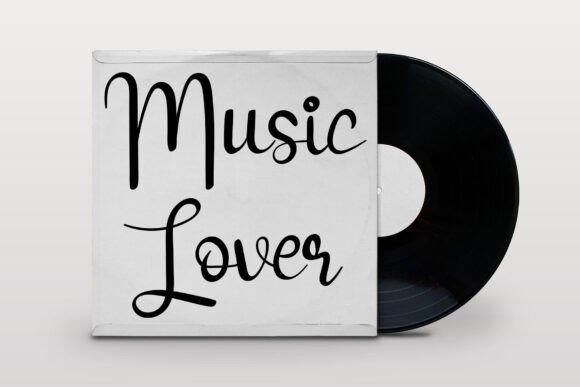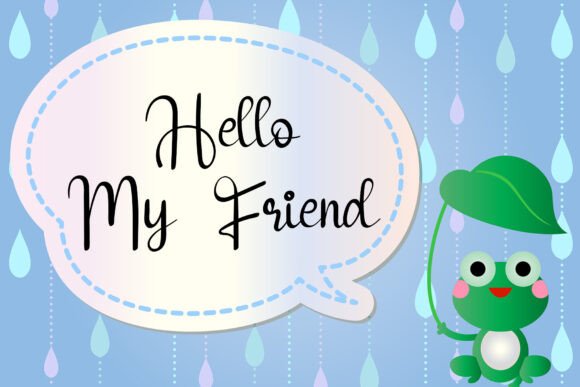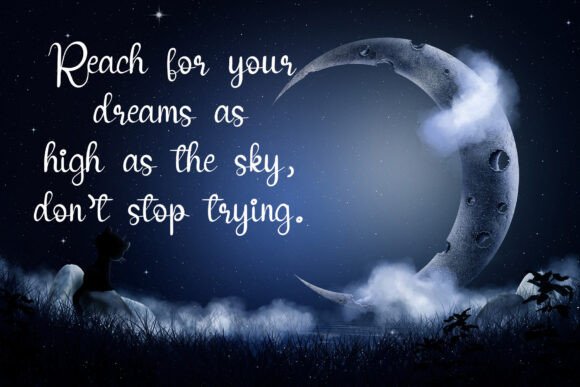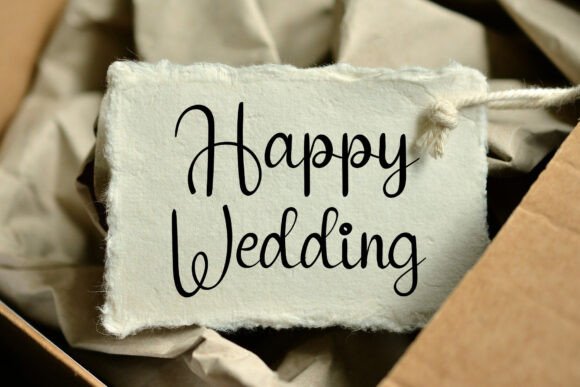
Introducing Birthday Font: The Sweet and Friendly Handwritten Font for Your Designs
Are you looking for a font that can add a personal touch to your designs? Do you want to create a warm and inviting atmosphere that makes your audience feel special? Look no further than Birthday Font, a sweet and friendly handwritten font that’s perfect for a wide range of design projects. In this article, we’ll take a closer look at the features and benefits of Birthday Font, and explore how you can use it to take your designs to the next level.
The Unique Style of Birthday Font
Birthday Font is a beautifully crafted handwritten font that’s designed to evoke a sense of warmth and friendliness. Its natural and unique style makes it incredibly fitting for a large pool of designs, from birthday cards and invitations to branding and packaging. The font’s irregularities and imperfections give it a charming, handmade feel that’s sure to capture the hearts of your audience.
One of the standout features of Birthday Font is its versatility. Whether you’re creating a formal or informal design, this font can adapt to any style or tone. Its sweet and friendly vibe makes it perfect for designs that require a personal touch, such as:
- Birthday cards and invitations
- Wedding stationery and decorations
- Branding and packaging for food, craft, and lifestyle products
The Benefits of Using Birthday Font
So why choose Birthday Font for your designs? Here are just a few benefits of using this amazing font:
- Emotional Connection: Birthday Font is designed to create an emotional connection with your audience. Its warm and inviting style makes your designs feel more personal and relatable.
- Versatility: As mentioned earlier, Birthday Font is incredibly versatile. It can be used for a wide range of design projects, from formal to informal.
- Easy to Read: Despite its handwritten nature, Birthday Font is easy to read and understand. This makes it perfect for designs that require a clear and concise message.
- Unique and Creative: Birthday Font is a one-of-a-kind font that’s sure to make your designs stand out from the crowd.
How to Use Birthday Font in Your Designs
Using Birthday Font in your designs is easy! Here are a few tips to get you started:
- Pair it with Other Fonts: Birthday Font pairs well with other fonts, such as sans-serif fonts like Arial or Helvetica. Experiment with different font combinations to create a unique look.
- Use it for Headings and Titles: Birthday Font is perfect for headings and titles. Use it to add a personal touch to your designs and make them more visually appealing.
- Add it to Your Brand Identity: If you’re looking to create a consistent brand identity, consider adding Birthday Font to your font collection. It can be used for branding, packaging, and marketing materials.